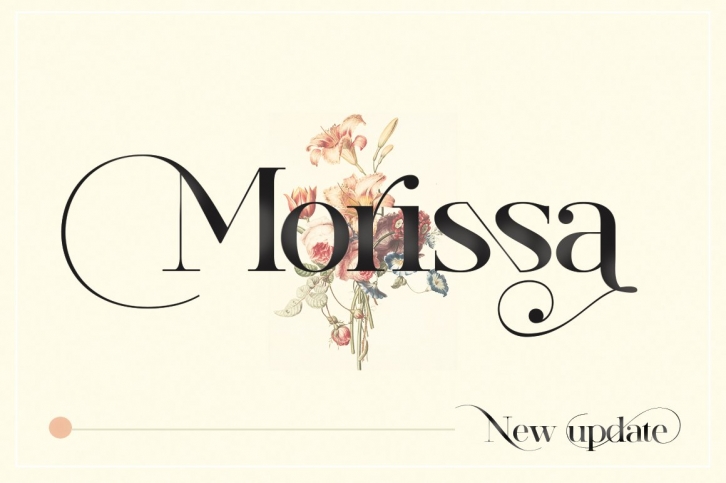
Morissa Elegant Serif is a gorgeous font that was realeased on October 22, 2021. The font can be used in many style contexts and design environments. Perfect for invitations, magazines, websites, logos, and more! It was designed by Areatype Studio and the file size is 8.52 MB. Thanks for checking out this font!